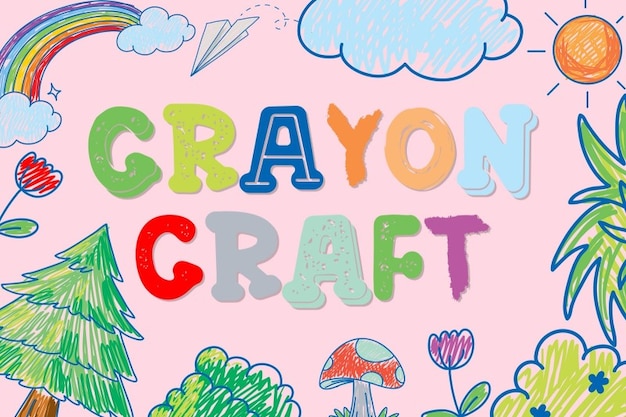
Crayon Craft Font
Crayon Craft is a playful, hand-drawn font that captures the charm of kids’ creativity. Its inline, crayon-textured letterforms add a whimsical and cheerful touch, perfect for children’s projects, school materials, or crafty designs. Crayon Craft brings a sense of fun and imagination, making every word feel like a colorful masterpiece straight from a child’s hand.